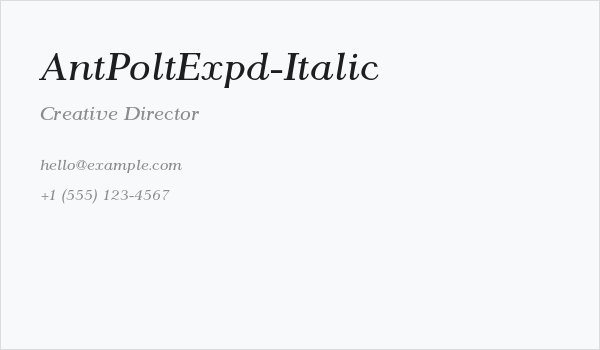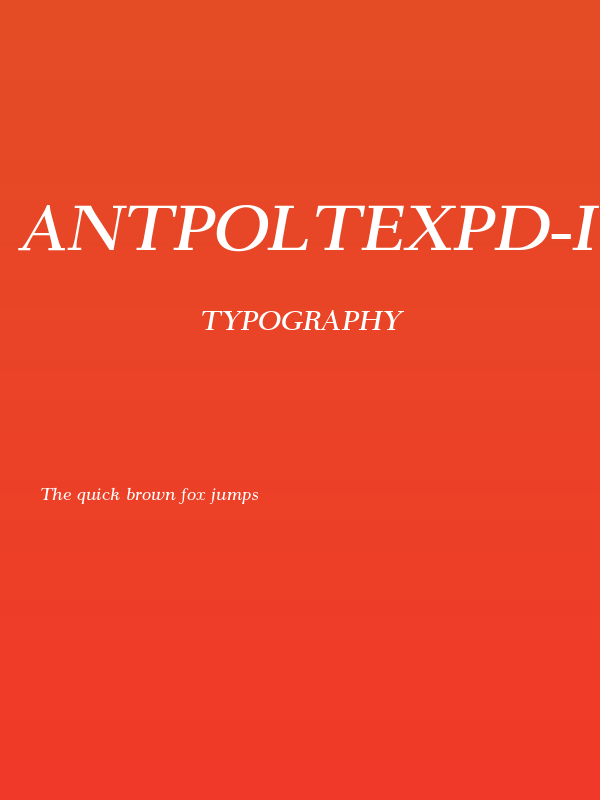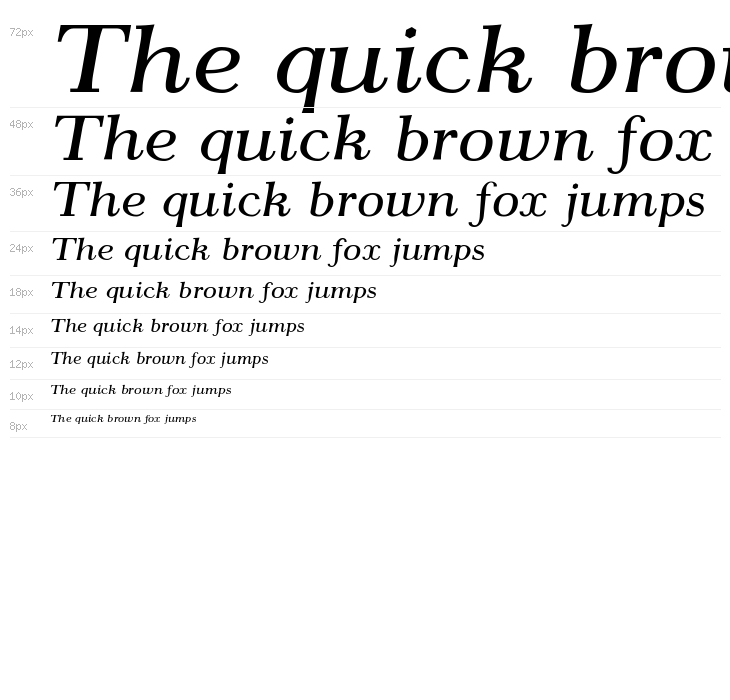
AntPoltExpd-Italic Font
AntPoltExpd-Italic Description
This font exhibits a classic serif style with elegant, flowing lines and a slight slant, indicative of its italic nature. The characters are well-proportioned, with a moderate contrast between thick and thin strokes, enhancing readability while maintaining a sophisticated appearance. The serifs are pronounced yet refined, adding a touch of formality and tradition. The overall design is expansive, providing a sense of openness and clarity. The numerals and special characters are designed to complement the alphabet, maintaining consistency in style and weight.
| Proposed Projects | Ideal for projects requiring a touch of elegance and tradition, such as formal invitations, editorial design, or branding for luxury products. |